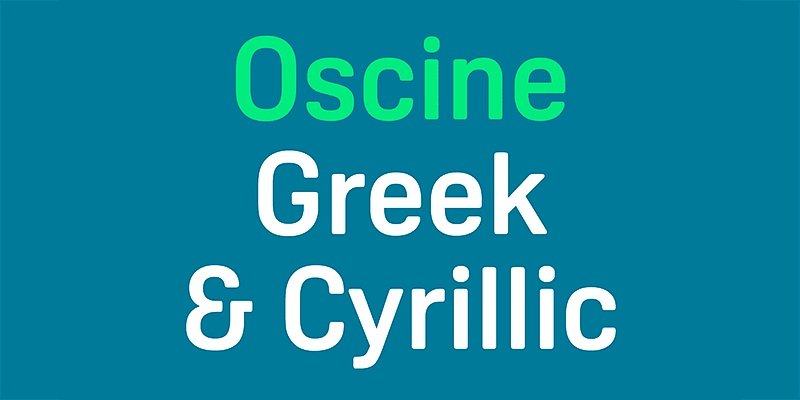
Oscine
Oscine has a condensed feel and a geometric expression. It combines conventional capitals with an unusual lowercase for functionality with just the right amount of character.